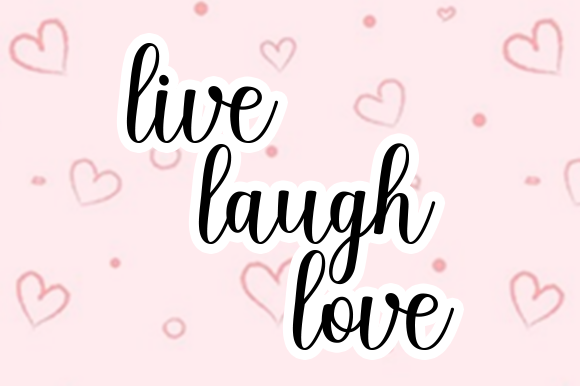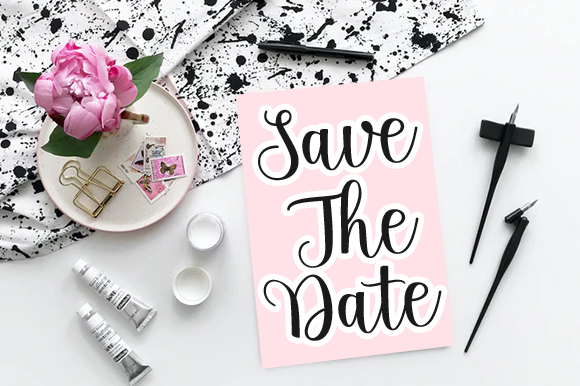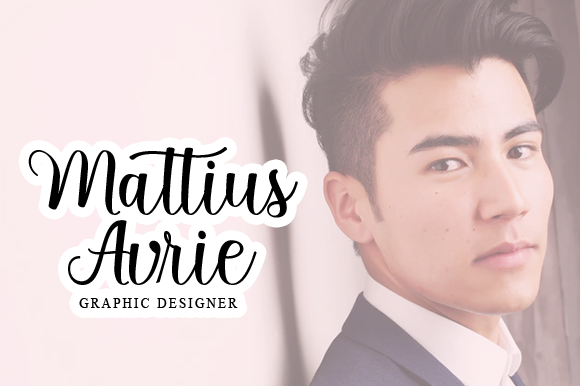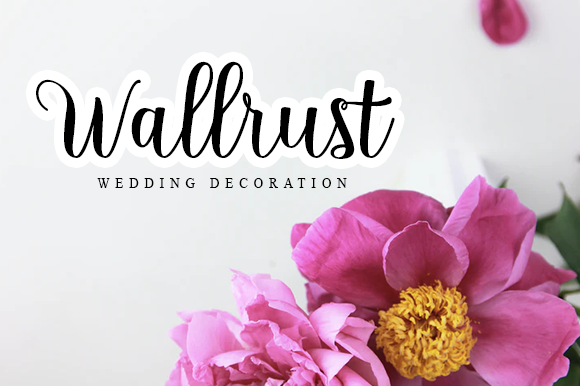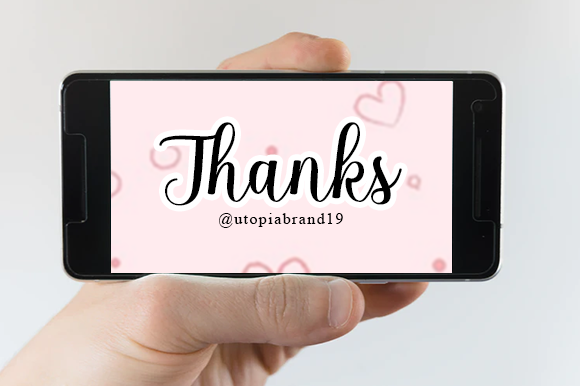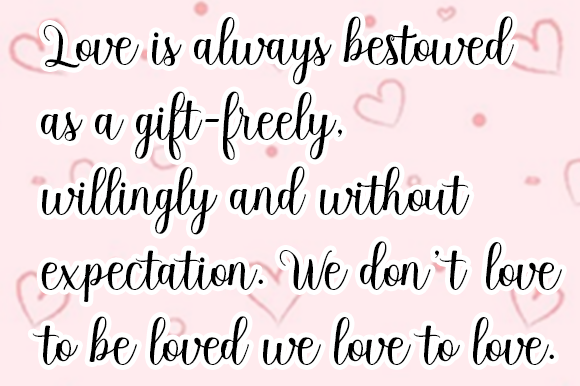
Western Font
About Western Font
Western is a chic and natural script font that emanates sophistication and elegance. It’s perfect for any project that requires a stylish and authentic look!